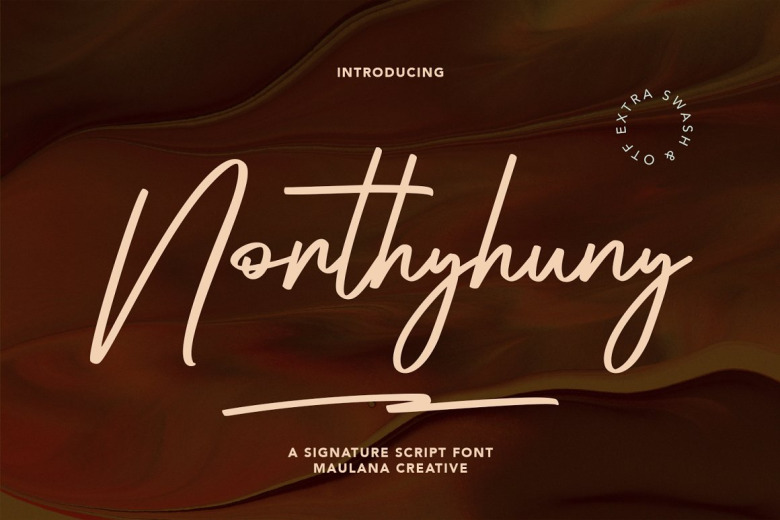
Northyhuny Font
Northyhuny is a font that can be classified as a casual signature script font. As refined, precise lines and amusing personality. It has opentype options such as ligatures and lowercase alternate, more creative works for you. Northyhuny signature script font supports more than 100+ language for every languages of world.
This font is uniquely suitable for logo creation, social platforms, movie titles, book titles, even short and long texts including letters, and is appropriate for the second type font with sans or serif. Create a unique work with Northyhuny signature font.
Northyhuny Signature Script Font